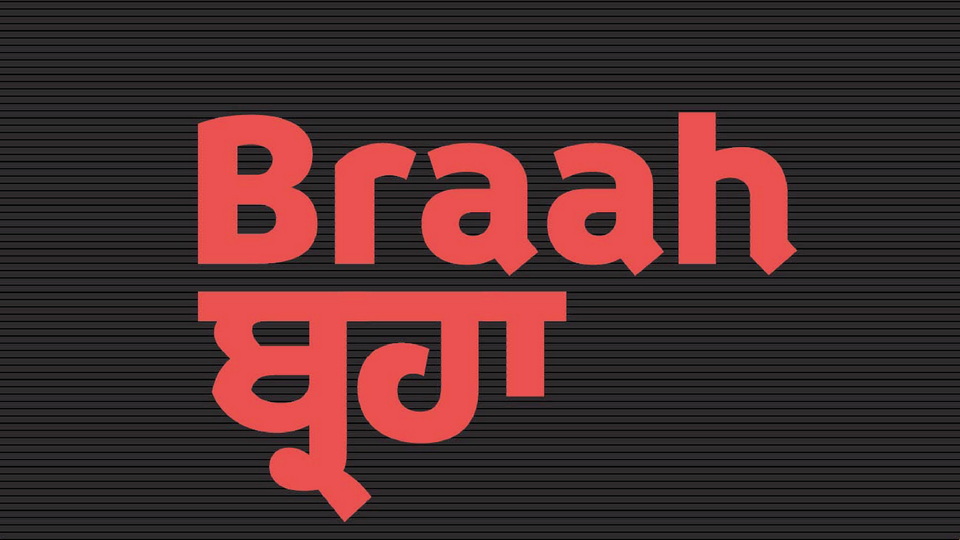
Download Braah font, a friendly display typeface, an absolute mix of boldness and playfulness. Braah is available in Gurmukhi script along with a Latin counterpart.
Designer: Ashish Kumar